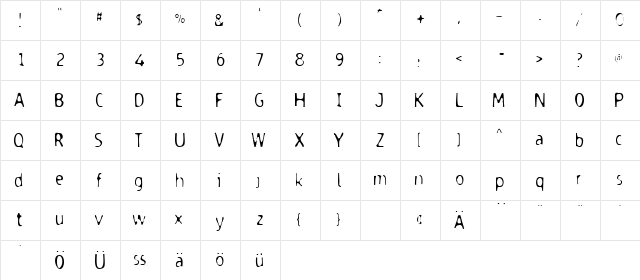
Dodgenburn A
Design Context for Dodgenburn Typeface
Dodgenburn is a composed and adaptable typeface that performs quietly and consistently across a wide range of design contexts.